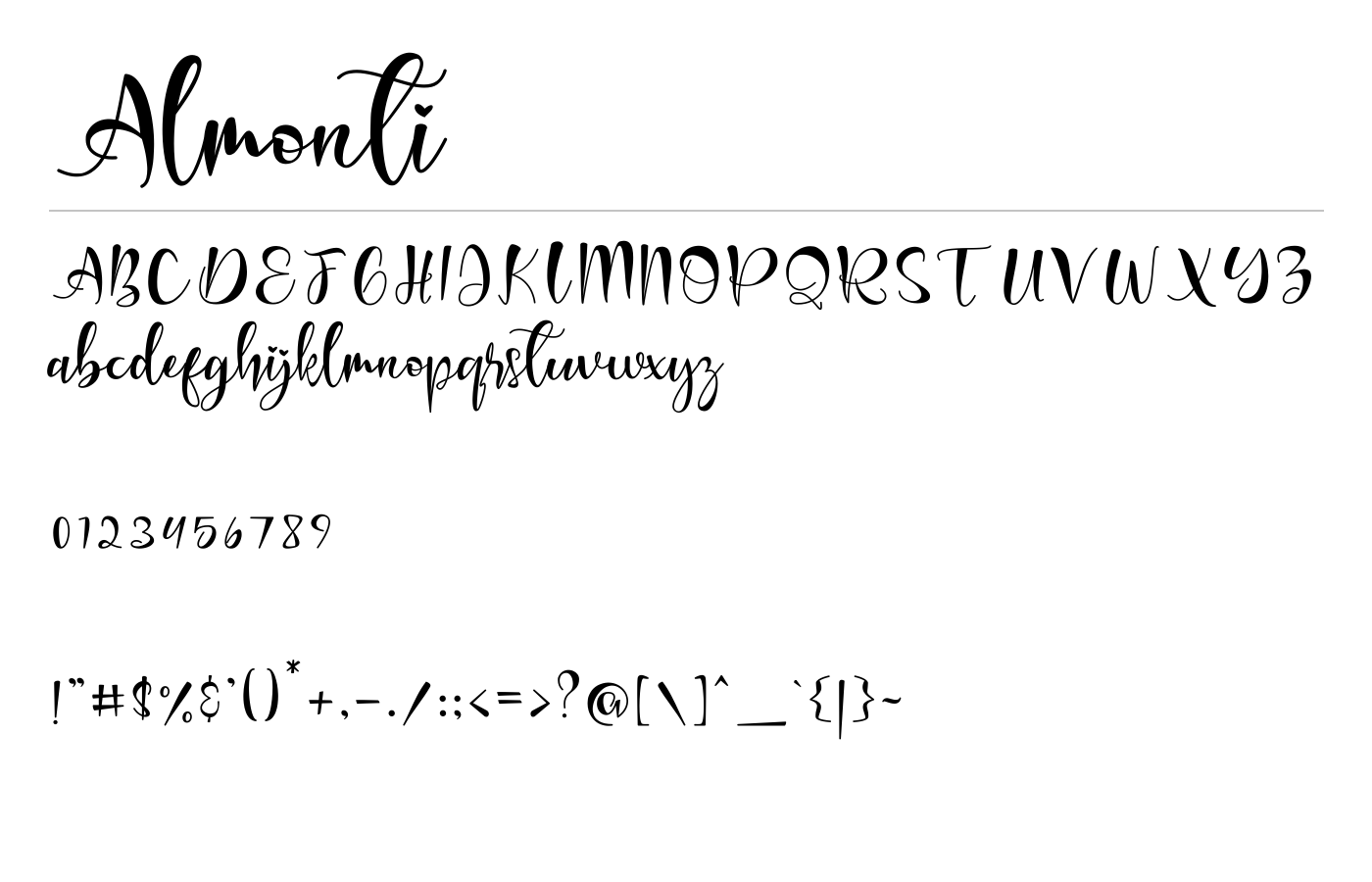
Almonti is an elegant script font characterized by its flowing, hand-lettered style with playful flourishes and a warm, inviting personality. Featuring a mix of bold and delicate strokes with heart-shaped and swooping details, it works beautifully for romantic, feminine, and creative designs such as wedding invitations, branding, and social media graphics. This font's charming and stylish look makes it ideal for adding a personal, artistic touch to any project.
Almonti Font
| Designer | Infontree |